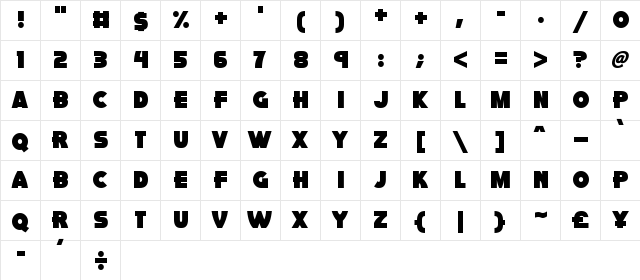
Pink Rocket Regular
Design Context for Pink Rocket Typeface
Pink Rocket is a composed and adaptable typeface that performs quietly and consistently across a wide range of design contexts.
Pro Tip: Use Pink Rocket in both headline and body roles to test its range before committing to a single application.